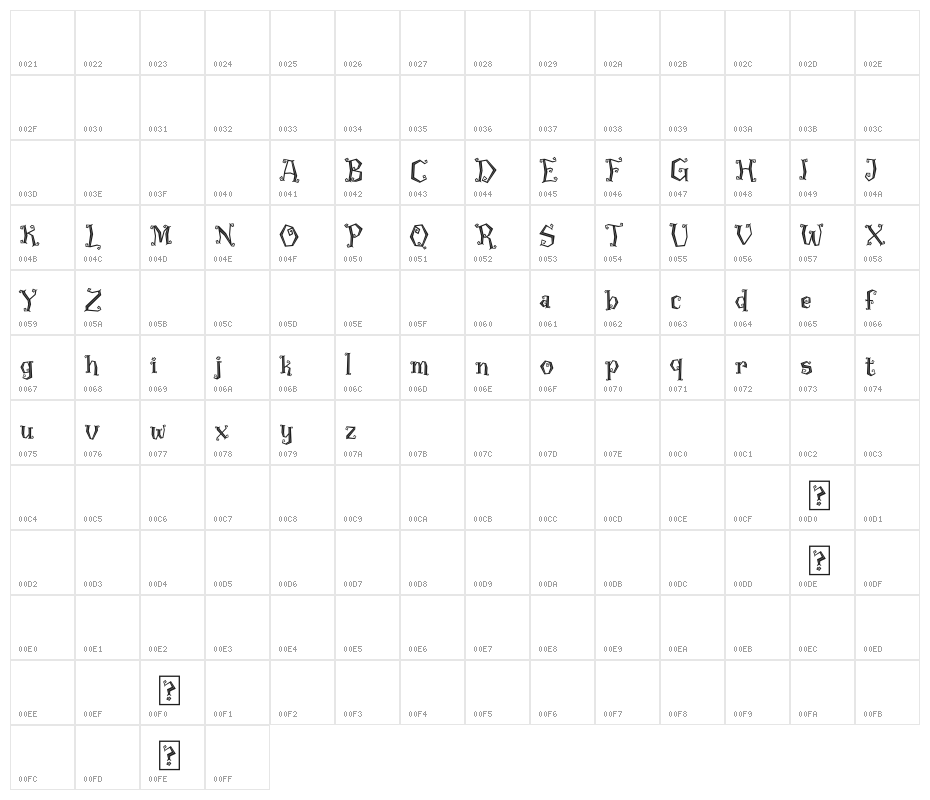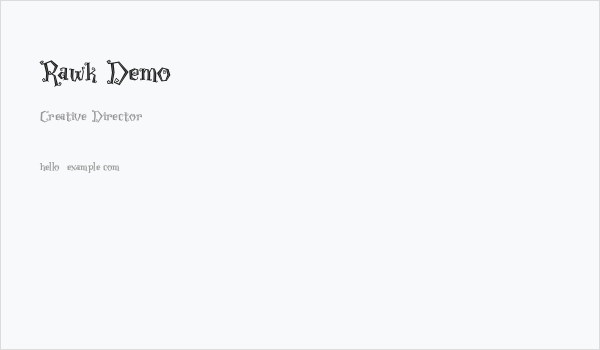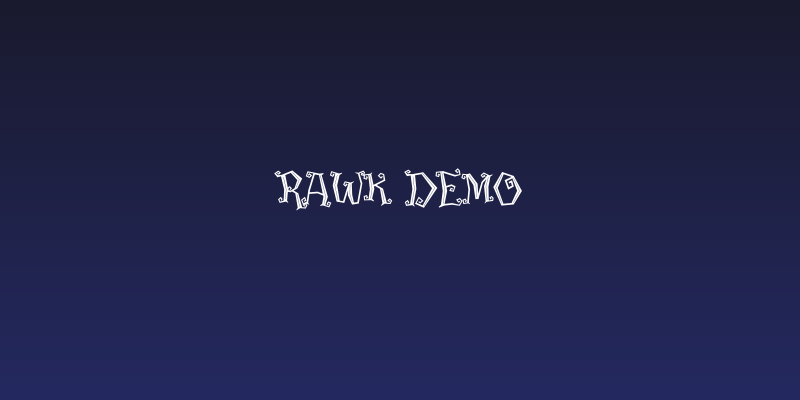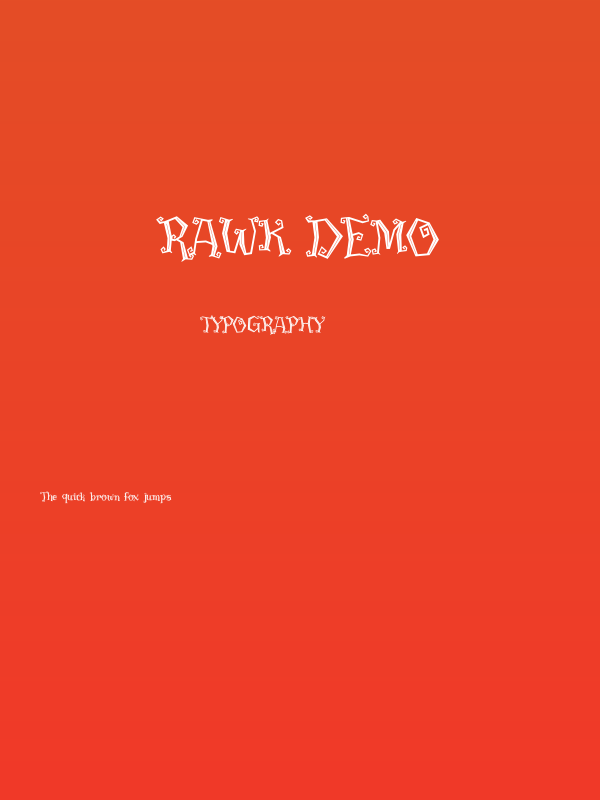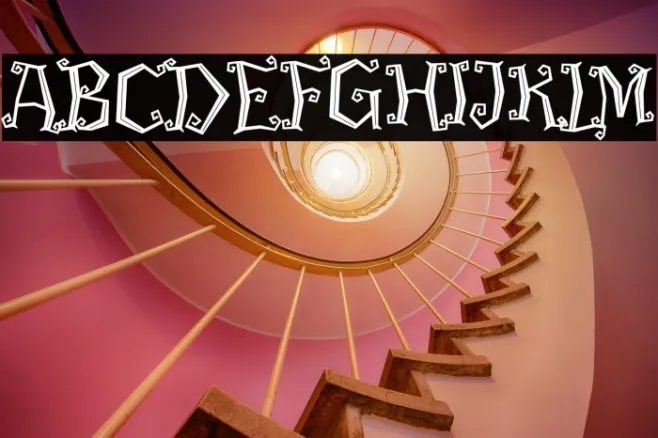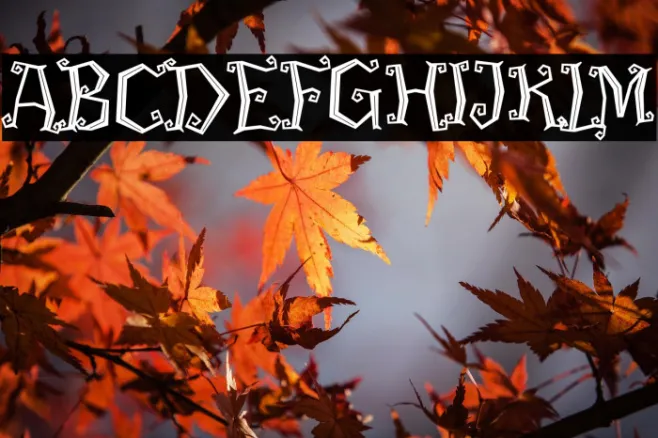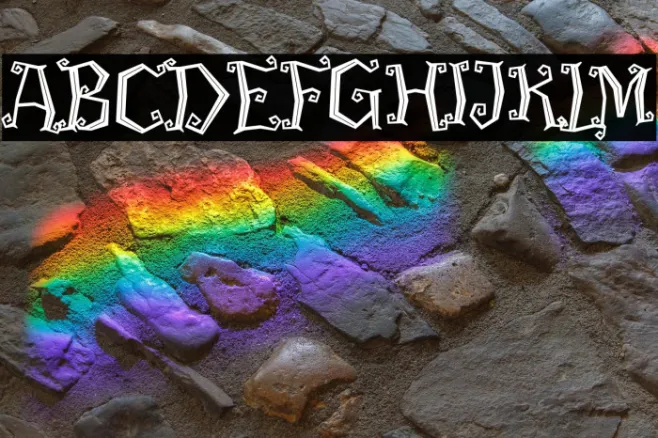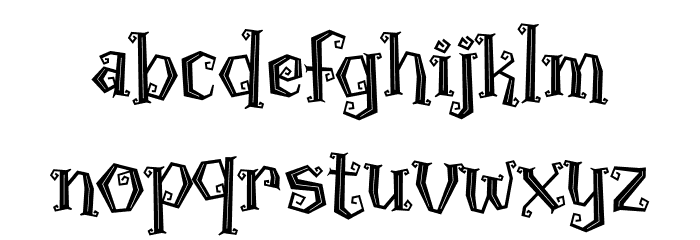
Rawk Demo Font
Rawk Demo Description
This font features a unique and playful design with a hand-drawn appearance. Each character is adorned with whimsical curls and twists, giving it a lively and energetic feel. The letters are bold and have a slightly uneven stroke, adding to the casual and informal style. The font maintains a consistent height across both uppercase and lowercase letters, with distinctive embellishments that make it stand out. Its quirky and artistic nature makes it suitable for creative projects that require a touch of fun and personality.
| Proposed Projects | Ideal for children's book covers, playful posters, greeting cards, and creative branding. |